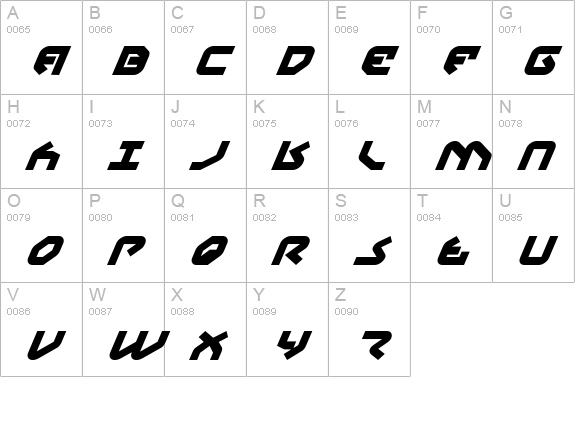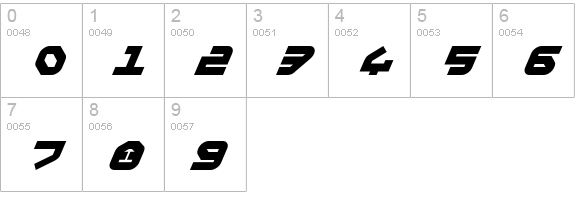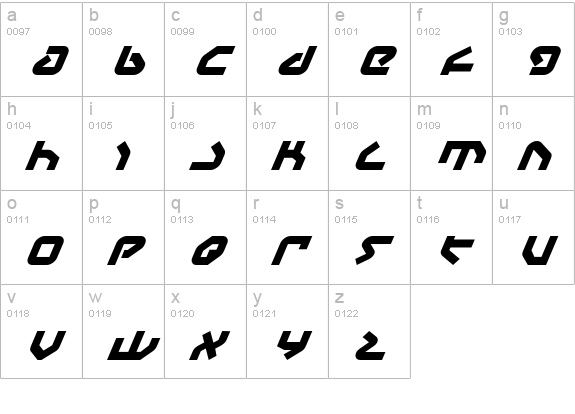
Yahren Bold Italic is a strong, high-contrast, italic variant in the Yahren typeface family \xE2\x80\x94 well suited to headlines, attention-grabbing titles, and strong calls-to-action.
Yahren Bold Italic font is a stunning display typeface that exudes elegance and sophistication. Its bold and italic design commands attention and adds a touch of modernity to any project. The unique curves and sharp angles of this font make it perfect for headlines, logos, and other design elements that require a strong visual impact. What sets Yahren Bold Italic font apart is not only its striking appearance but also the fact that it is available for free download at FontsMarket.com. This means that you can add this eye-catching font to your collection without having to spend a dime. Whether you're a designer looking to spice up your projects or a business owner in need of a fresh new look for your branding, Yahren Bold Italic font is the perfect choice. Download it today and elevate your designs with this versatile and impactful typeface.